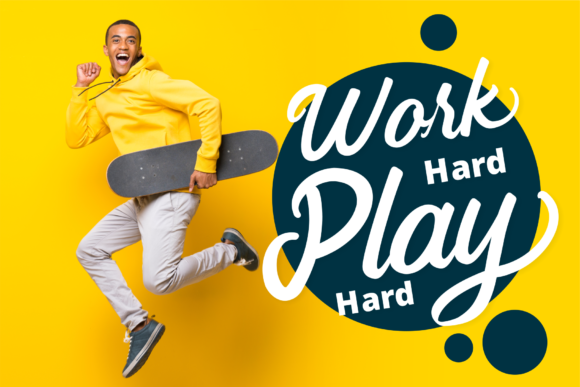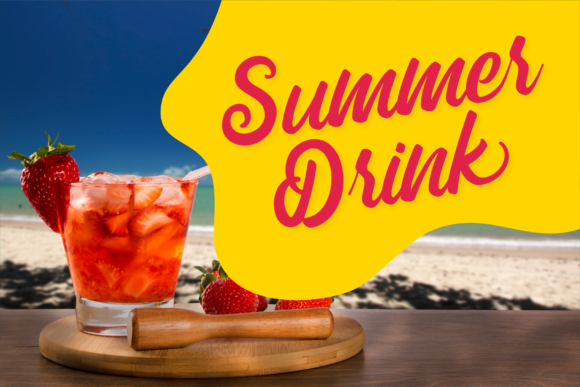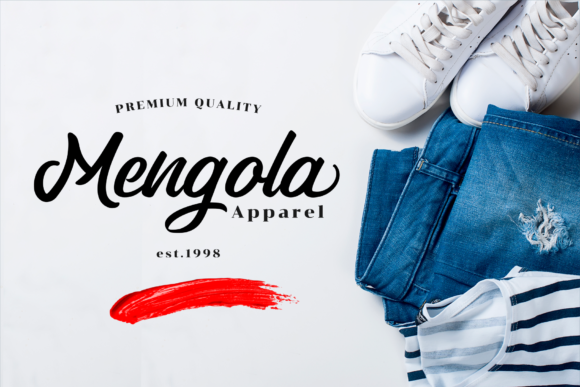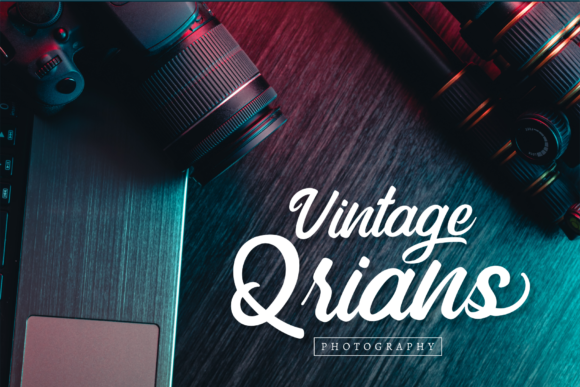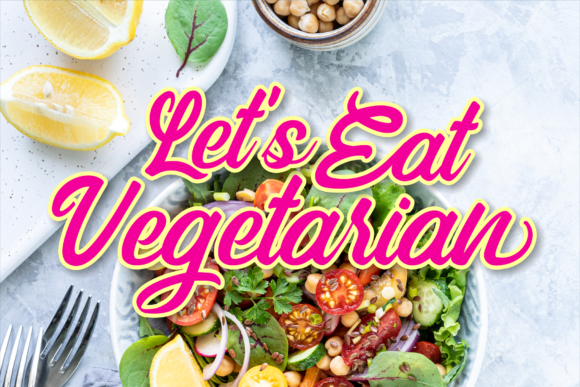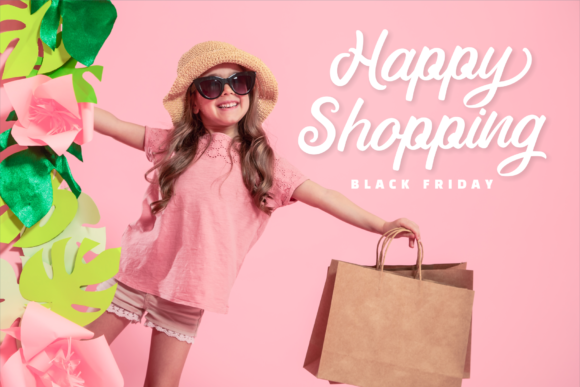
Introduction to Jeniyo Font
Jeniyo is a flowing handwritten font, described by an elegant touch, perfect for your favorite projects.
Key Features of Jeniyo Font
Why Choose Jeniyo Font?
Jeniyo Font offers exceptional quality and versatility, making it a valuable addition to your design toolkit. Whether you’re creating for personal projects or commercial use, Jeniyo Font delivers professional results.